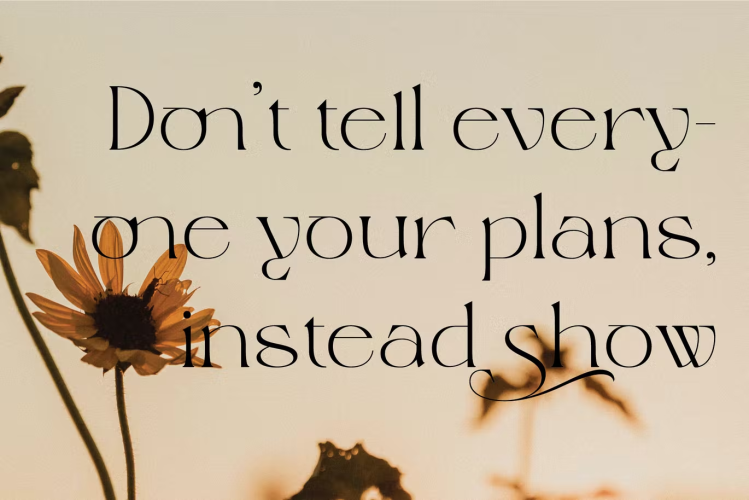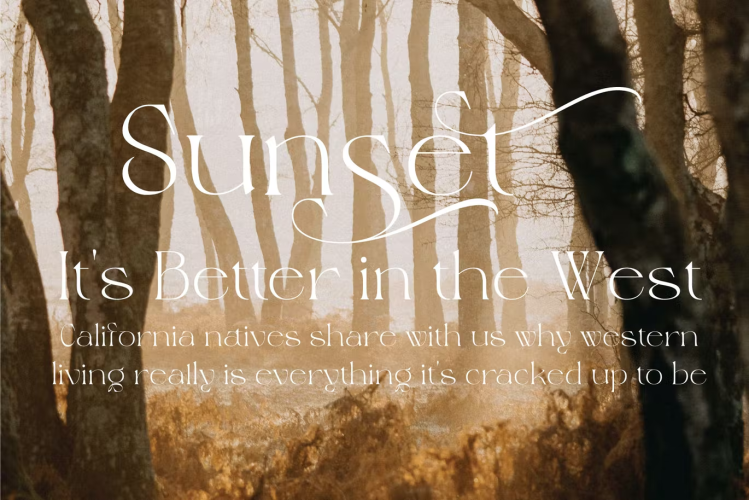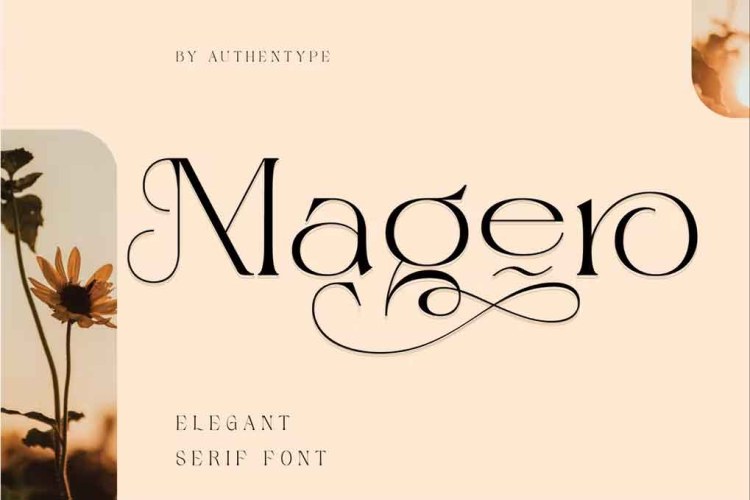
Magero Elegant Serif Font
Magero Elegant Serif Font with discretionary ligatures that give each word a different shape. Also contains a swash with an elegant, contrasting, and clean, perfect for…
Magero Elegant Serif Font with discretionary ligatures that give each word a different shape. Also contains a swash with an elegant, contrasting, and clean, perfect for logo designs, posters, and various types of promotional media.
Where Magero Elegant Serif Font works best
Reports, white papers and book interiors hold the eye longer when the text face has real serifs; Magero Elegant Serif Font keeps that rhythm without looking old-fashioned.
Food, spirits and cosmetics brands lean on serif wordmarks to suggest age and care. Magero Elegant Serif Font gives that signal at wordmark size.
Set Magero Elegant Serif Font for the body of an award or a diploma and keep the recipient name in a script; the pairing is what makes a document feel official.
What kind of work does Magero Elegant Serif Font suit?
It sits in the Serif Fonts group and reads as branding, clean, elegant, serif. That makes it a candidate wherever those qualities help: headings, packaging, social graphics and brand work. Set it at the size you plan to use before deciding.